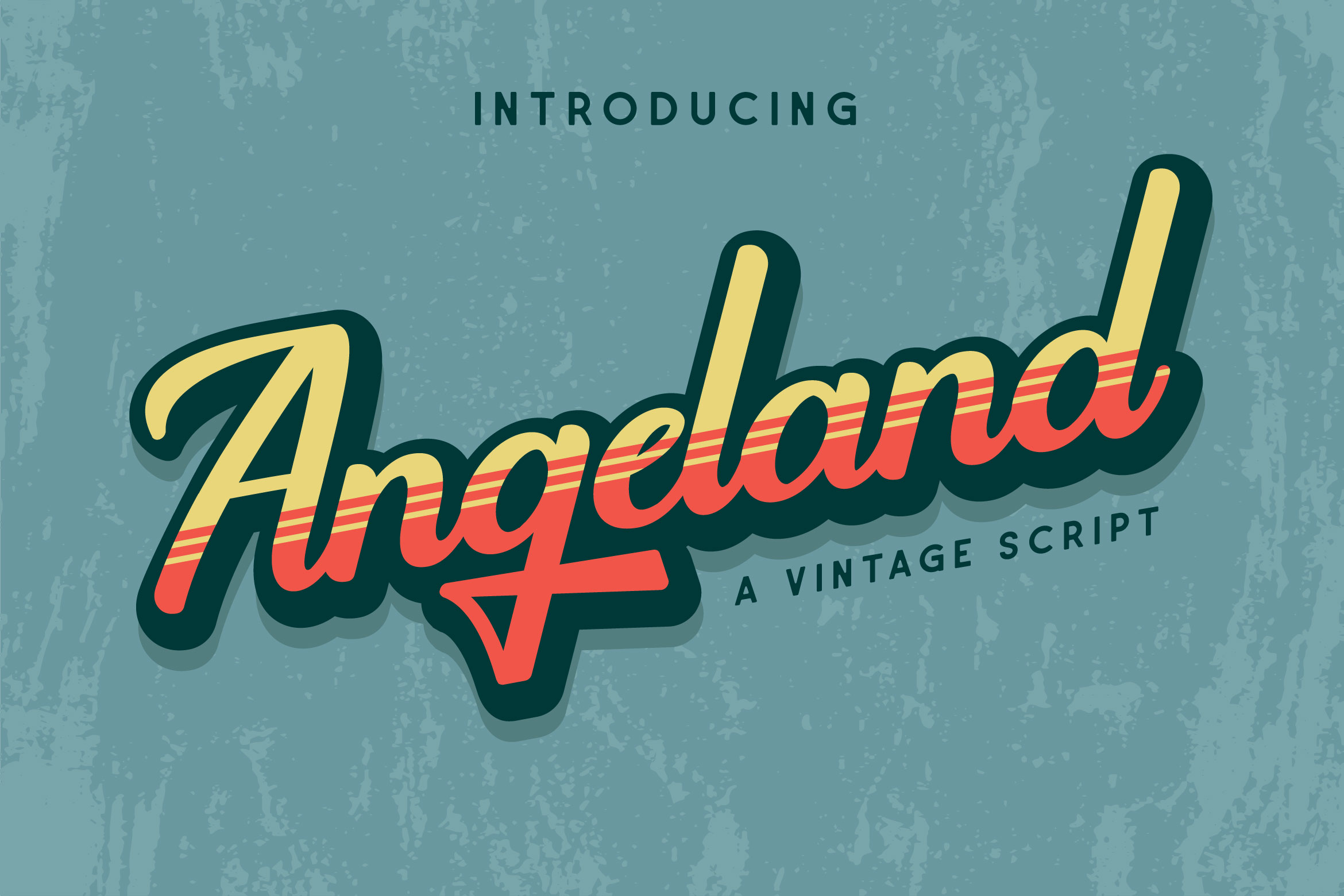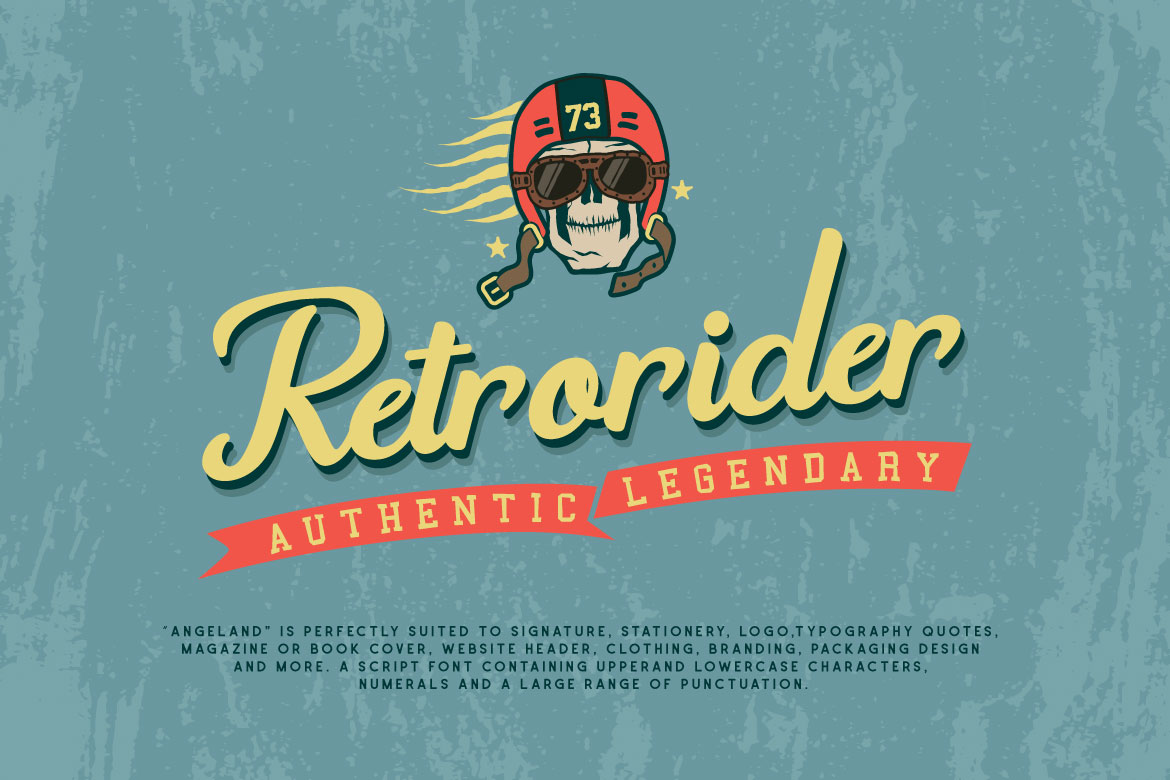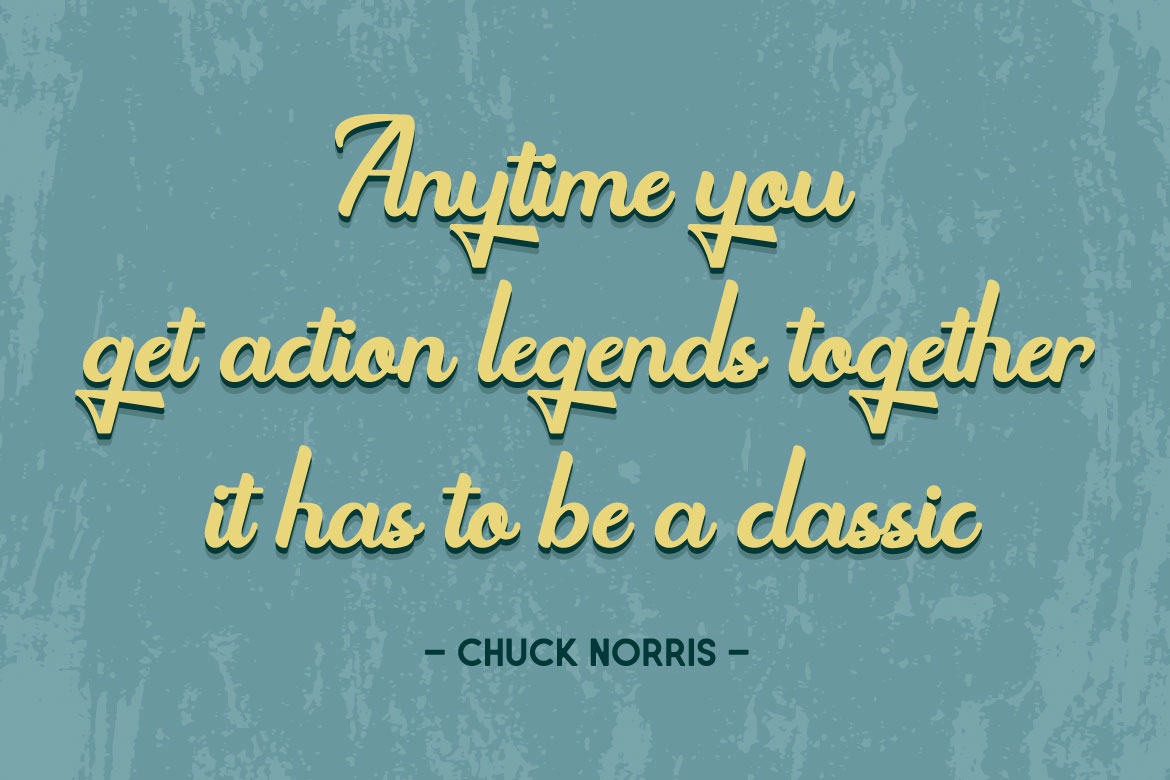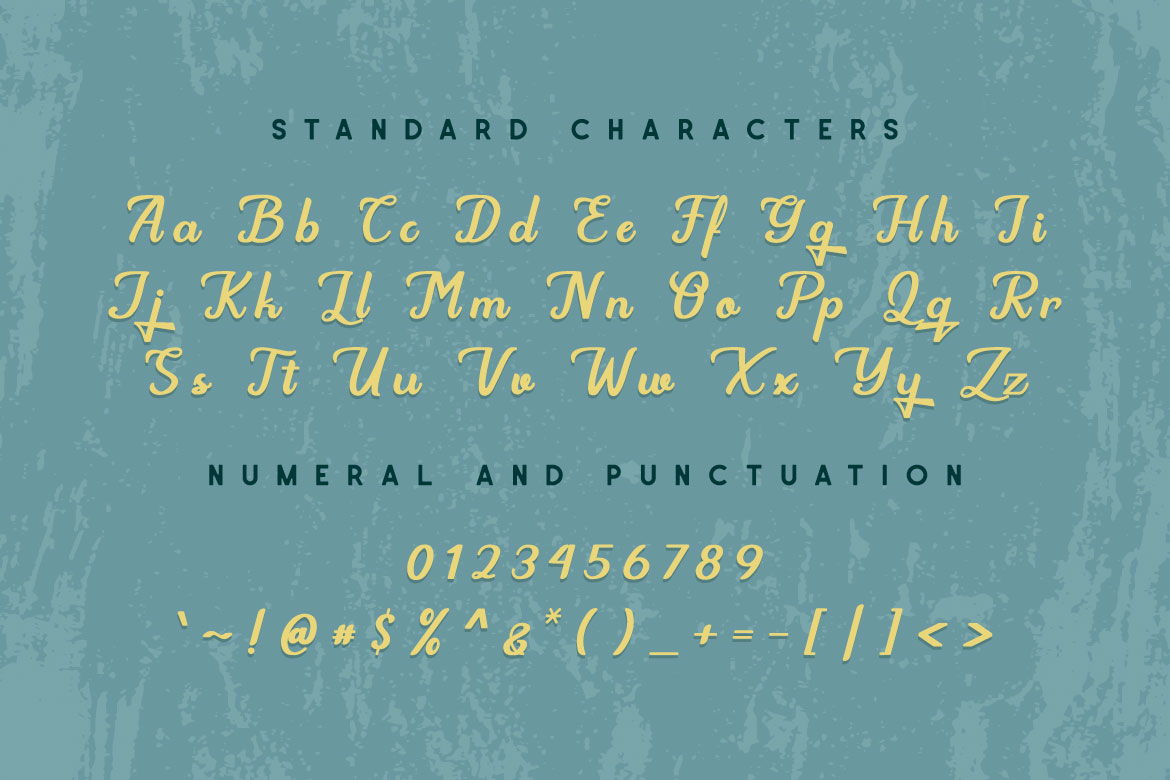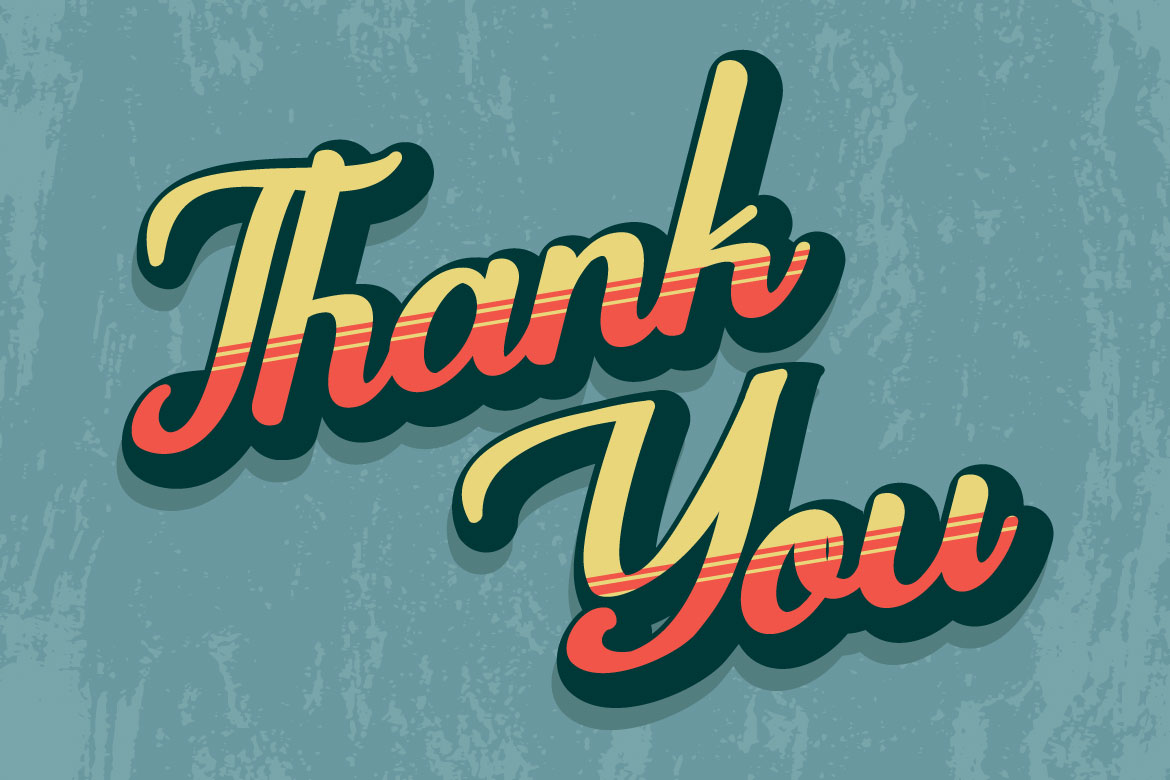
Angeland is a bold vintage script font inspired by retro signage and classic Americana style. With its thick brush strokes, bold swashes, and layered color effects, Angeland brings a sense of nostalgia and energy to every design it touches. The font is perfect for projects that aim to capture a retro aesthetic, whether it’s for branding, apparel, posters, or packaging design.
This script typeface includes uppercase and lowercase letters, numerals, punctuation, and multilingual support, making it highly versatile for various creative needs. Angeland shines especially well in logos, retro badges, and advertising layouts that call for a handcrafted, standout visual identity. Its playful yet confident personality makes it a perfect choice for creators who love timeless vintage flair.
Angeland